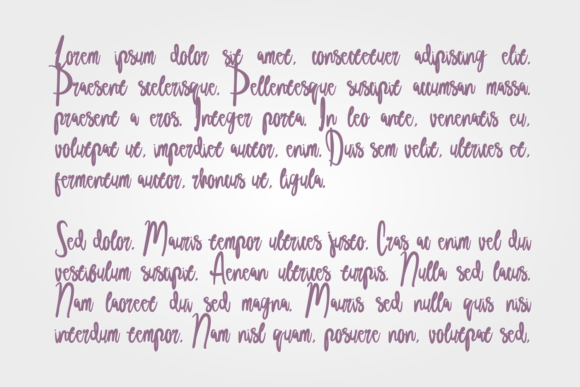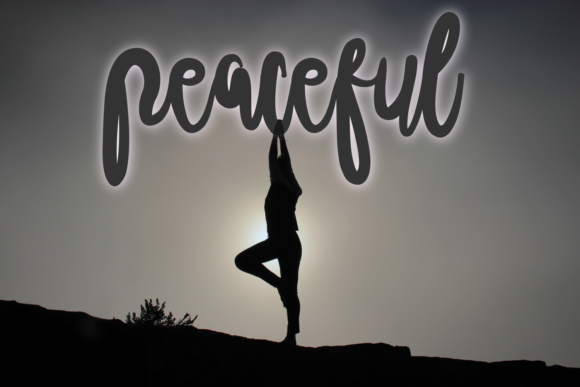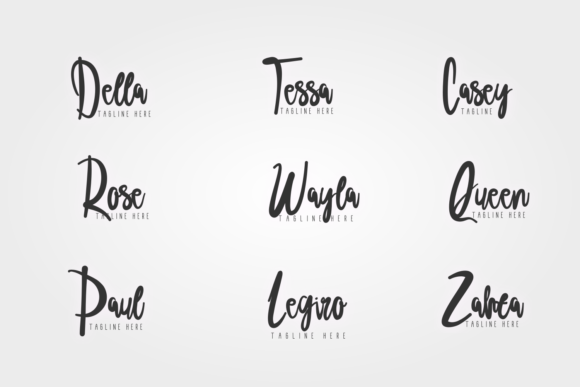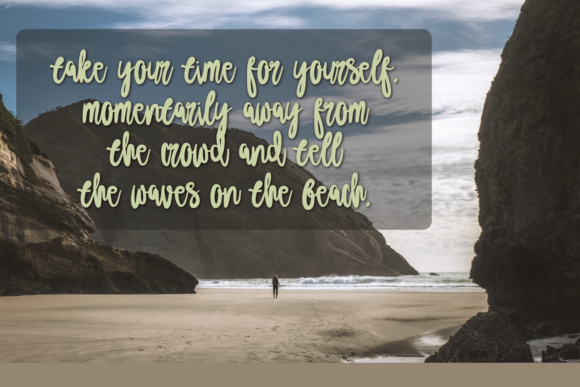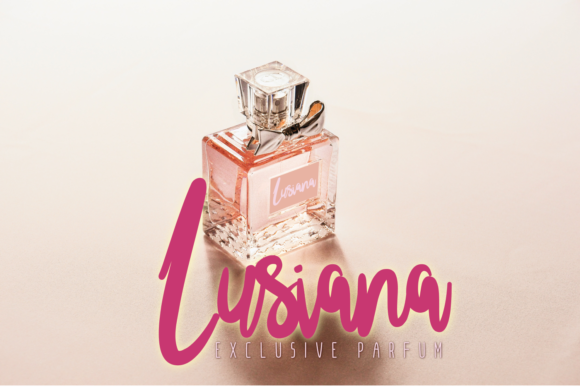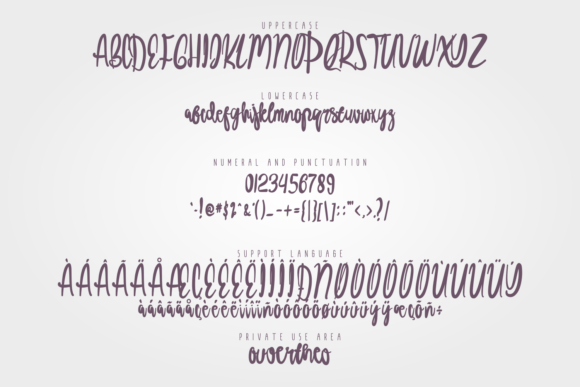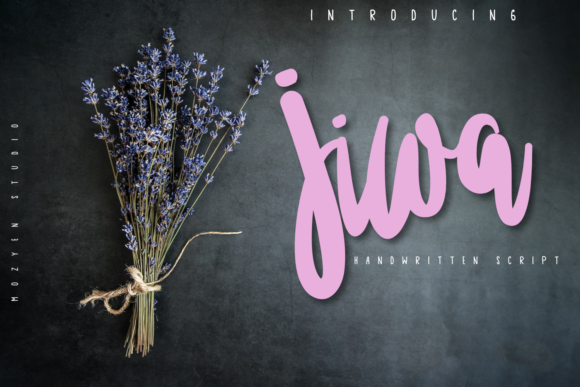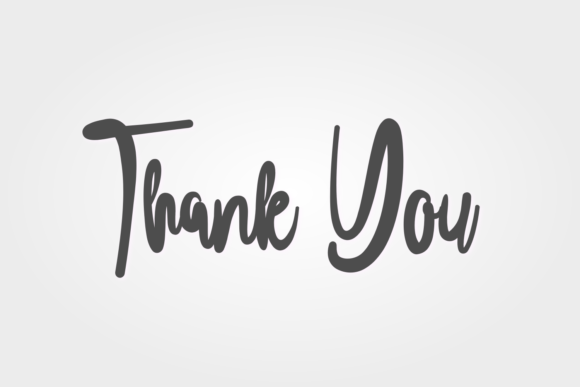
Jiwa Font
About Jiwa Font
Jiwa feels equally charming and elegant. This stunning handwritten font is a stylish homage to classic calligraphy. It features a varying baseline, smooth lines, gorgeous glyphs and stunning alternates.
Fall in love with its authentic feel and use it to create gorgeous wedding invitations, beautiful stationary art, eye-catching social media posts, and cute greeting cards.